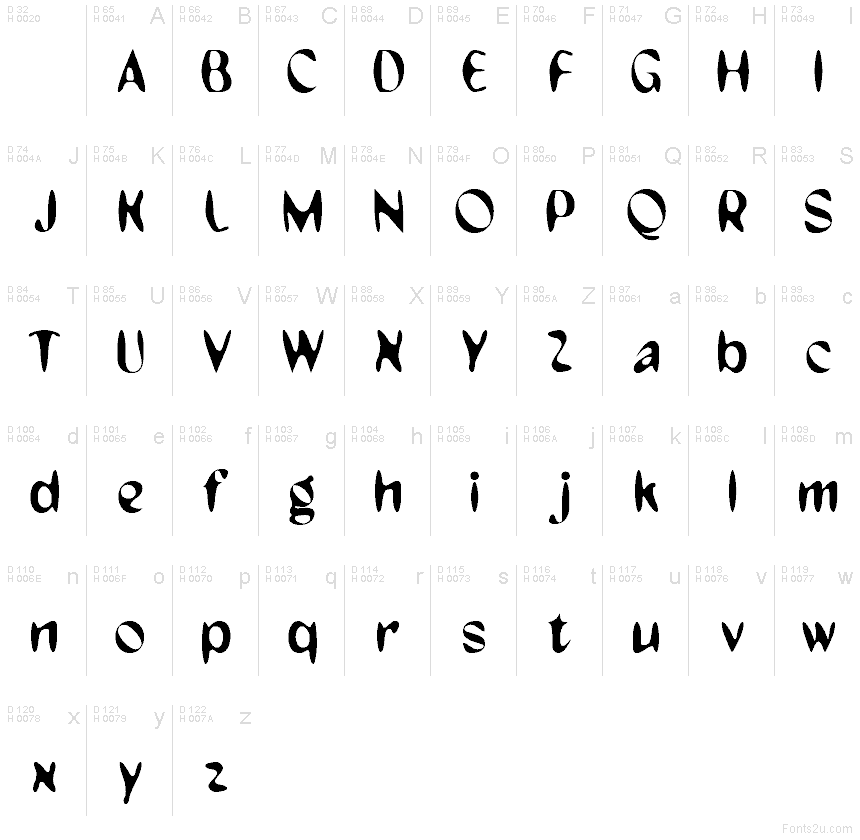
CSVenoraDrawn-Regular Demo
CS Venora Drawn font by Craft Supply Co. is a bold display font infused with artistic flair. Minimalistic in its design, the slightly slanted characters of this typeface are accompanied by extra thin horizontal lines to give it an edgy look that suits contemporary projects. With a modern style, CS Venora Drawn can suit branding designs for all businesses.
Use it in logo designs for male and female clothing items, shoes and even cosmetics! Make your company’s name on business cards appear readable while allowing the audience to notice the typography’s dashing details or decorate social media posts with a wide range of uses.
CS Venora Drawn Demo